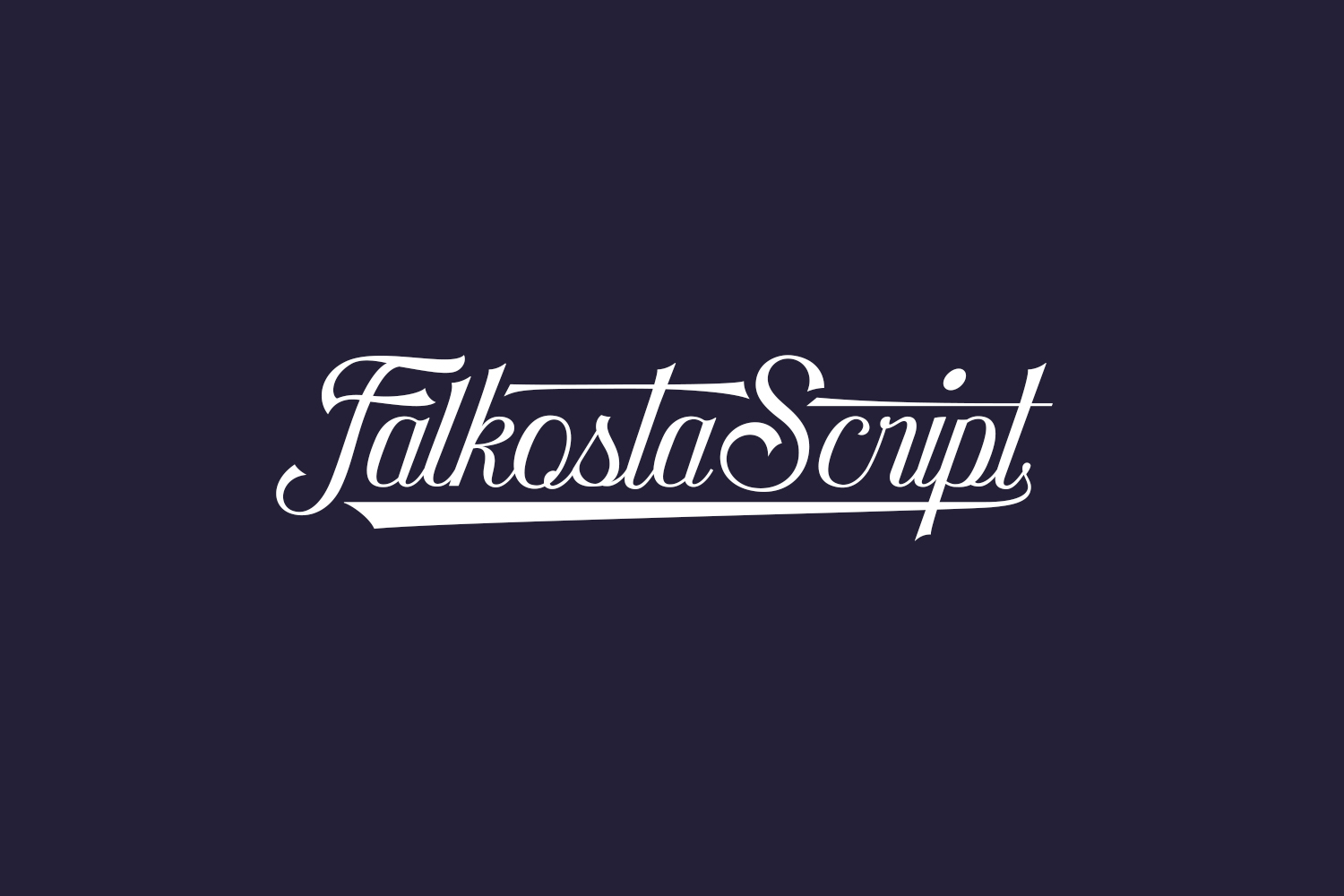
Falkosta Script Free Font is a stunningly beautiful script calligraphy font that is sure to capture your attention. With its flowing lines and elegant curves, this font exudes a sense of grace and sophistication that is hard to ignore. Its intricate details and ornate flourishes create a visual feast for the eyes, making it the perfect font for any project that demands elegance and refinement.
The unique style of Falkosta Script Free Font is versatile enough to be used for a variety of design projects, including wedding invitations, branding, and packaging. It’s perfect for designers who want to add a touch of femininity and romance to their work, while also maintaining a modern and fresh aesthetic.